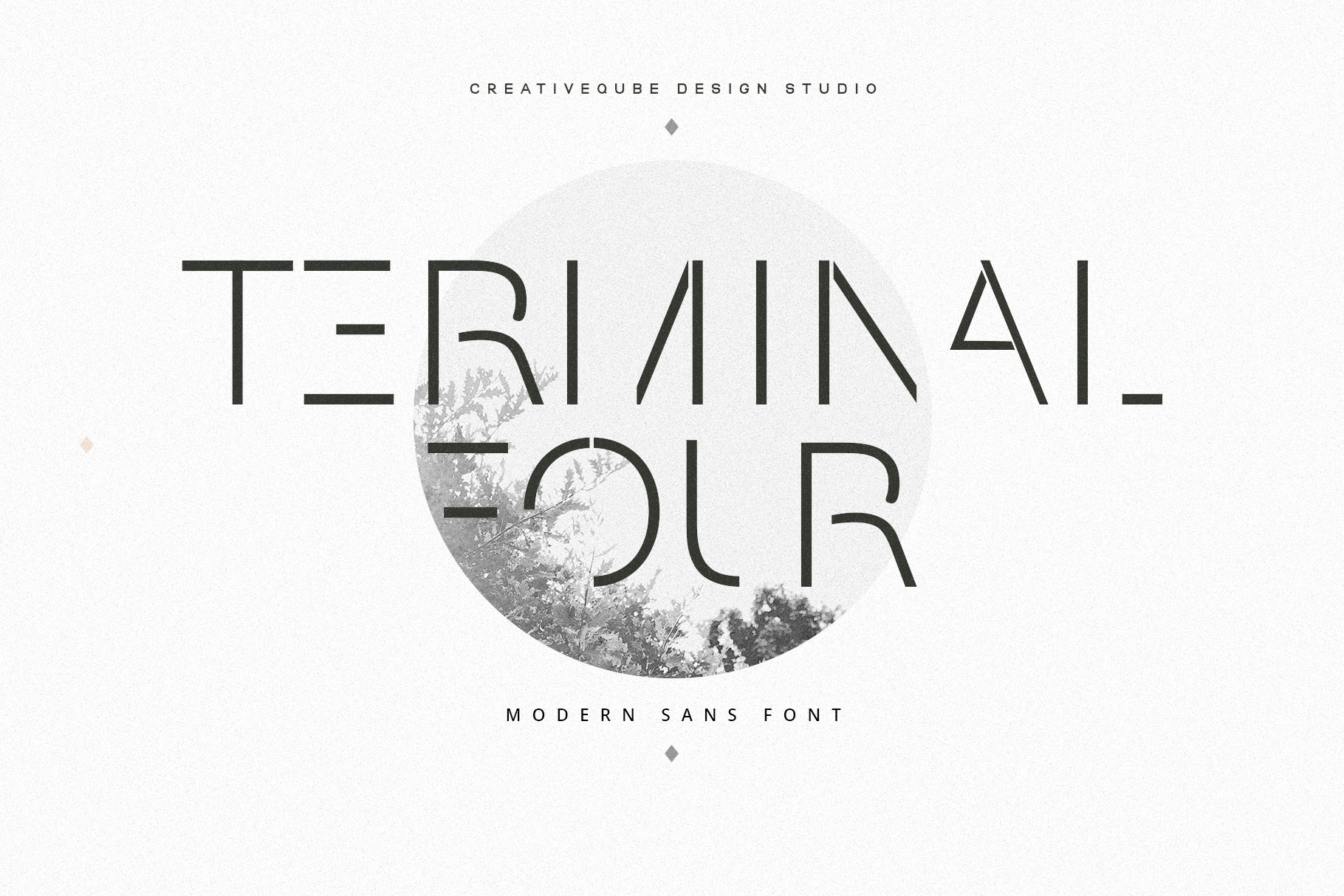
Introducing a new modern style sans serif font - Terminal Four
This is a super modern all caps font, perfect for quotes, invites, weddings, posters, signs, branding, logos, signage, and much more!